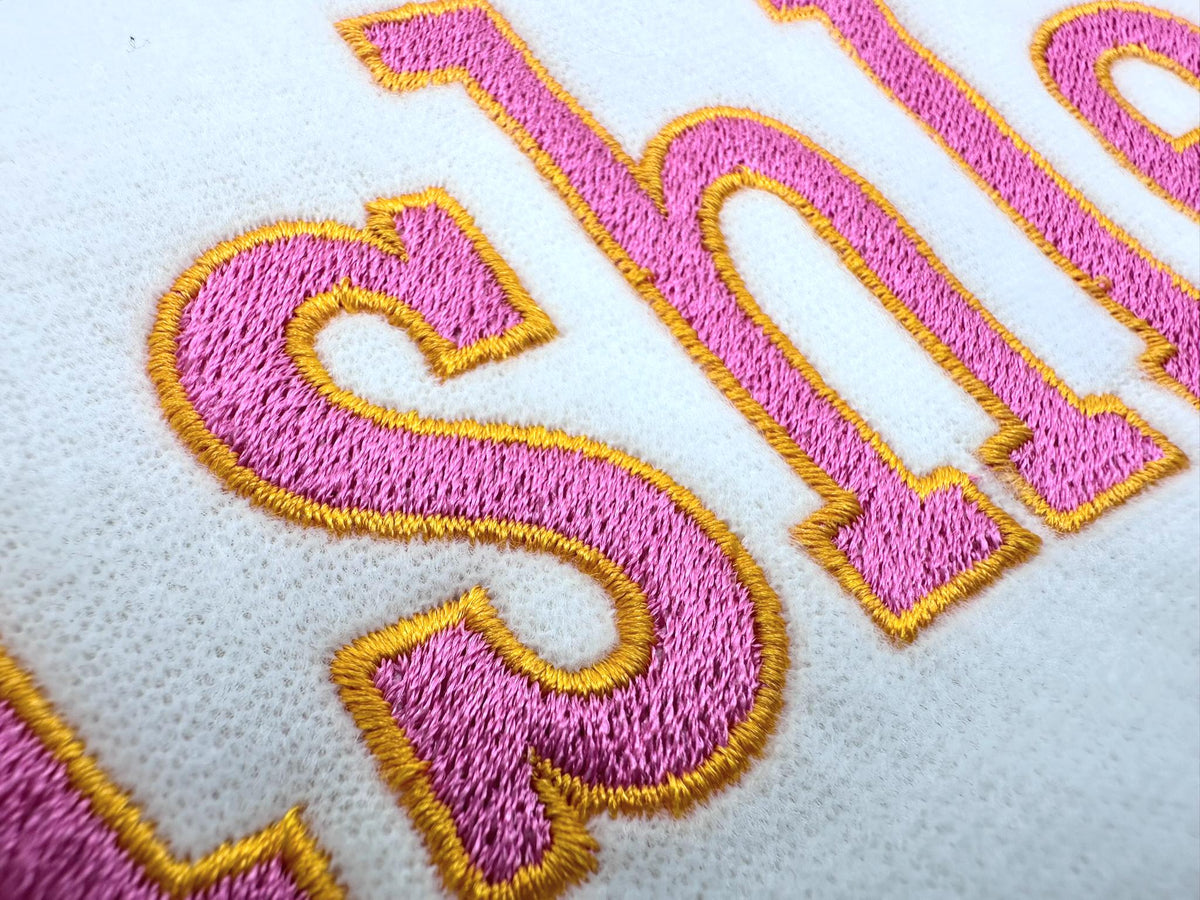
Awesome Font Fill and Outline
Or click to open the linkA fill stitch font with an outline. Great for kids' names, monograms and shirts.
The letters come in five sizes: 1.5, 2, 2.3, 3 and 4 inches. Fill stitch letters with an outline. Includes uppercase and lowercase letters A to Z and numbers 0 to 9.
- Fill stitch font with outline
- Uppercase and lowercase letters, numbers 0 to 9
- 5 sizes, 1.5 to 4 in